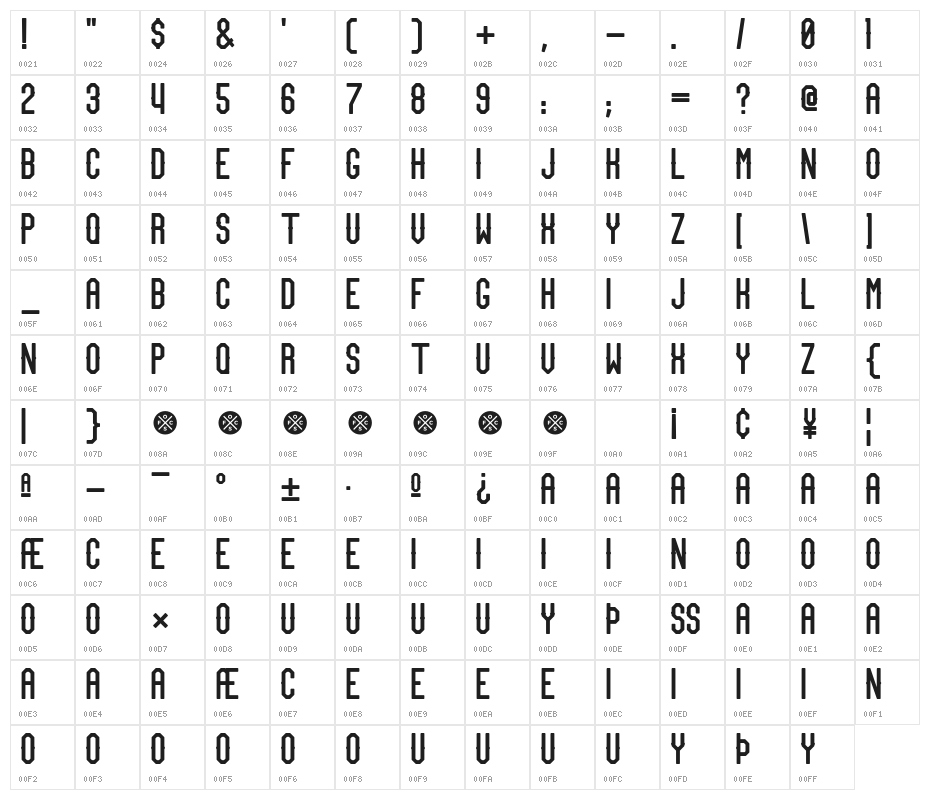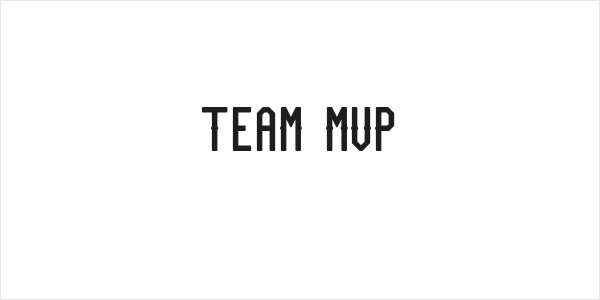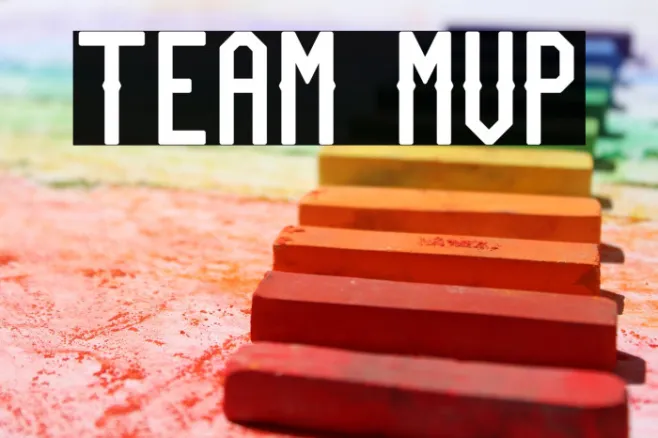
Team MVP Font
Team MVP Description
This font features a bold, geometric design with a strong, industrial feel. The characters are constructed with thick, uniform strokes and sharp angles, creating a sense of strength and modernity. The uppercase and lowercase letters maintain a consistent height, contributing to a monospaced appearance. The numerals and special characters follow the same design principles, ensuring visual harmony across all elements. The font's distinct style makes it highly suitable for projects that require a bold and impactful visual presence.
| Proposed Projects | Ideal for branding, posters, headlines, and any design requiring a strong, modern look. |